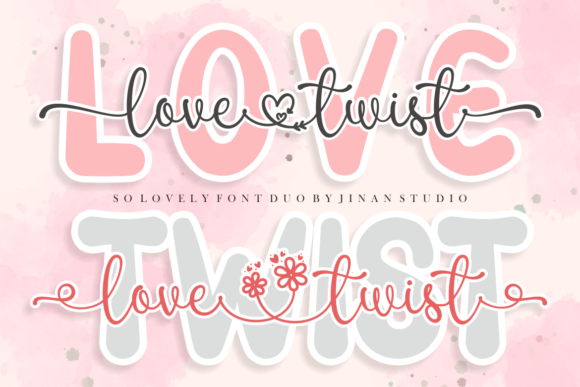
Introducing Love Twist Duo Font, the ultimate font for adding a romantic and delicate touch to your designs. Created by the talented designer jinanstd, this duo font (script and sans serif) is the perfect choice for anyone looking for a unique and stylish font.
Love Twist Duo Font is ideal for a wide range of applications, from greeting cards and invitations to headlines and logos. Its elegant script style and delicate sans serif font make it the perfect choice for any project that needs a touch of romance.
What makes Love Twist Duo Font truly special is its PUA encoding. This means that all of the glyphs and swashes are easily accessible, allowing you to create truly unique designs that stand out from the crowd.
Whether you're a professional designer or simply looking to add a touch of elegance to your next project, Love Twist Duo Font is the perfect choice. Its versatility and eye-catching design make it a must-have for anyone looking to create beautiful, romantic designs that truly capture the essence of love.